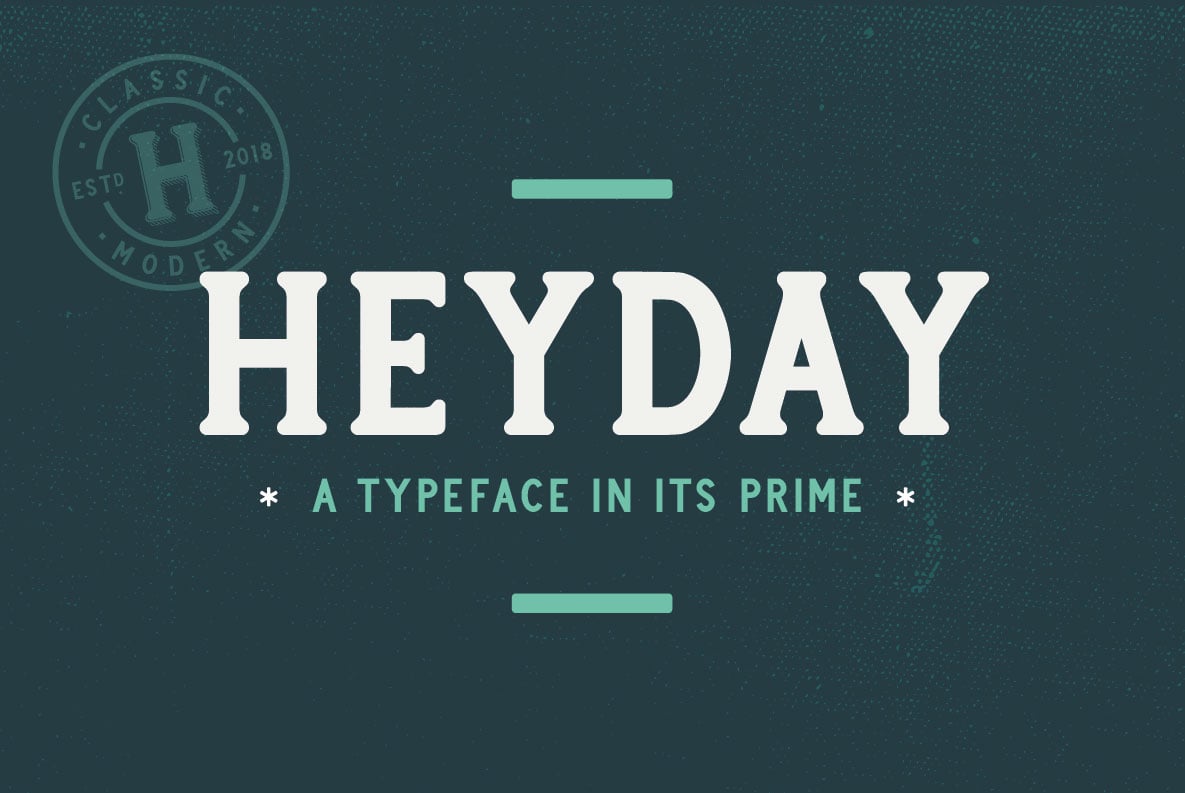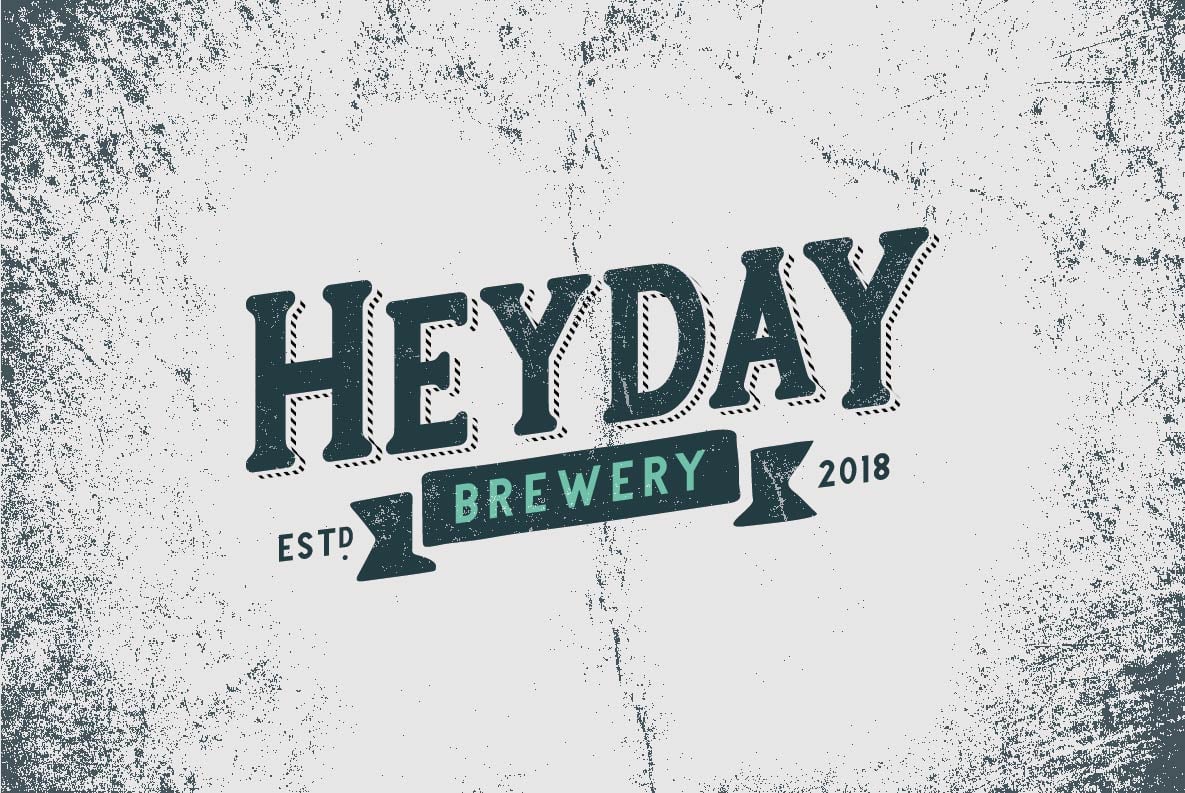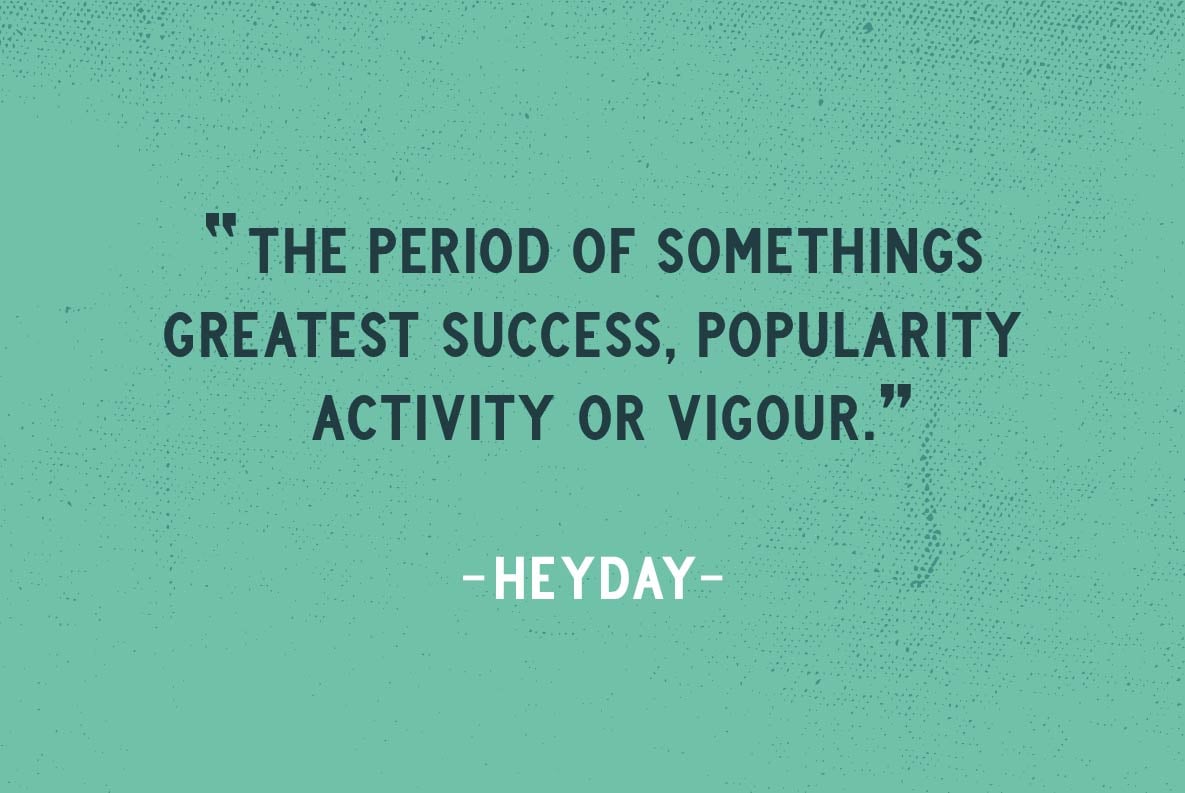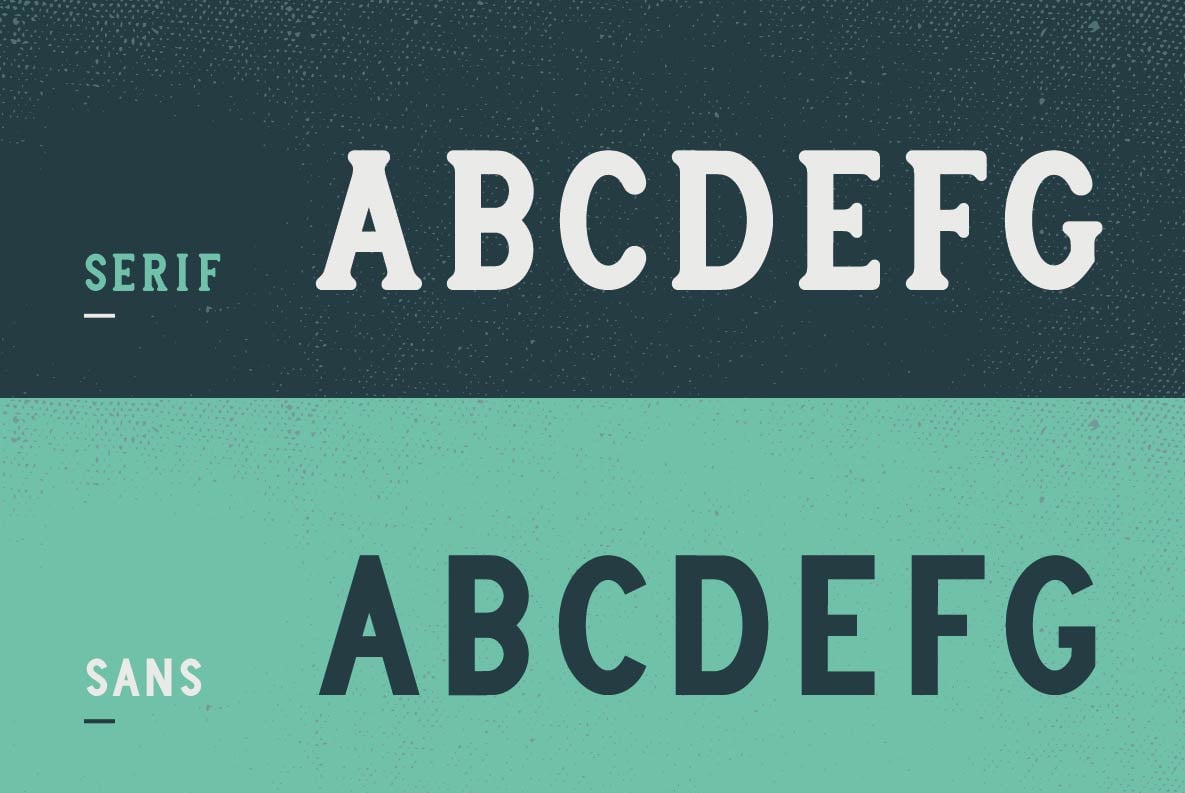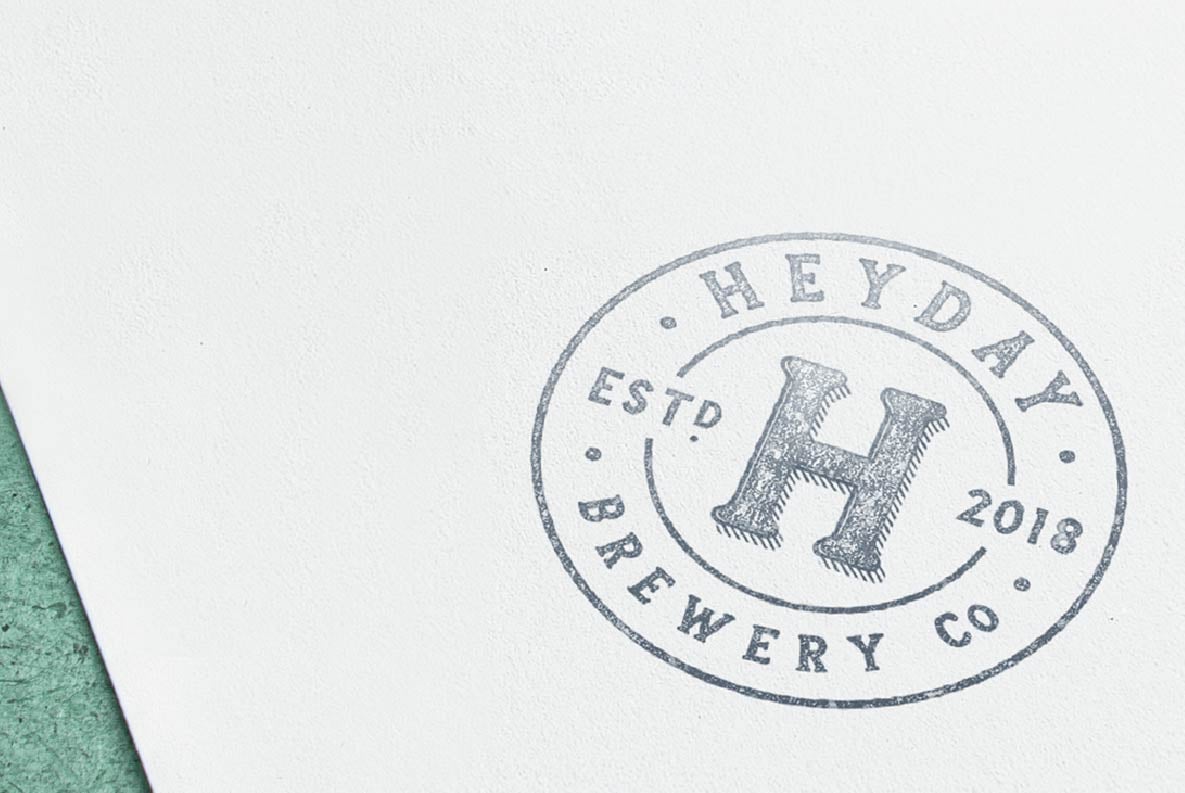
Heyday Font Family
Heyday was inspired by vintage style typography with the use of thick rounded serifs, while the shape of the letterform has a contemporary edge which brings it into the modern day. This combination of classic and modern creates a unique look and feel that enables the font to feel at home in any era.